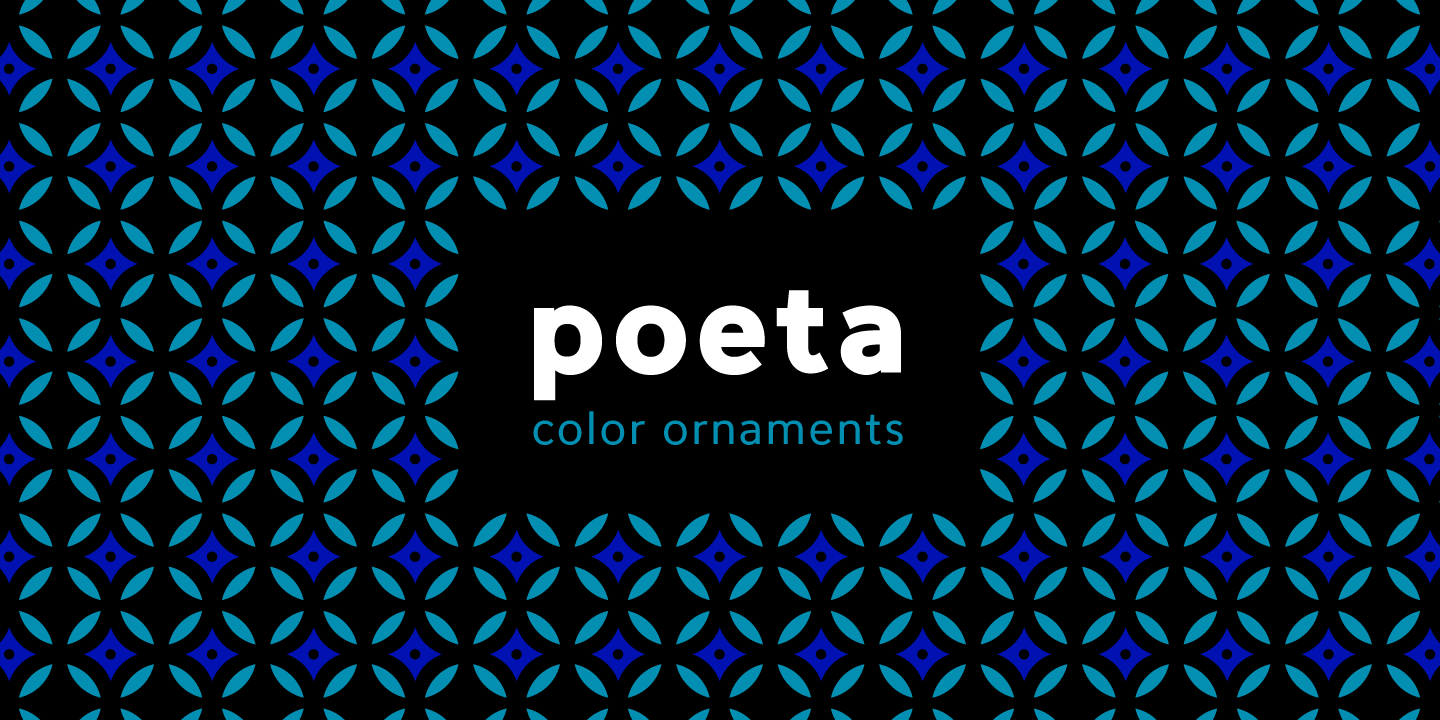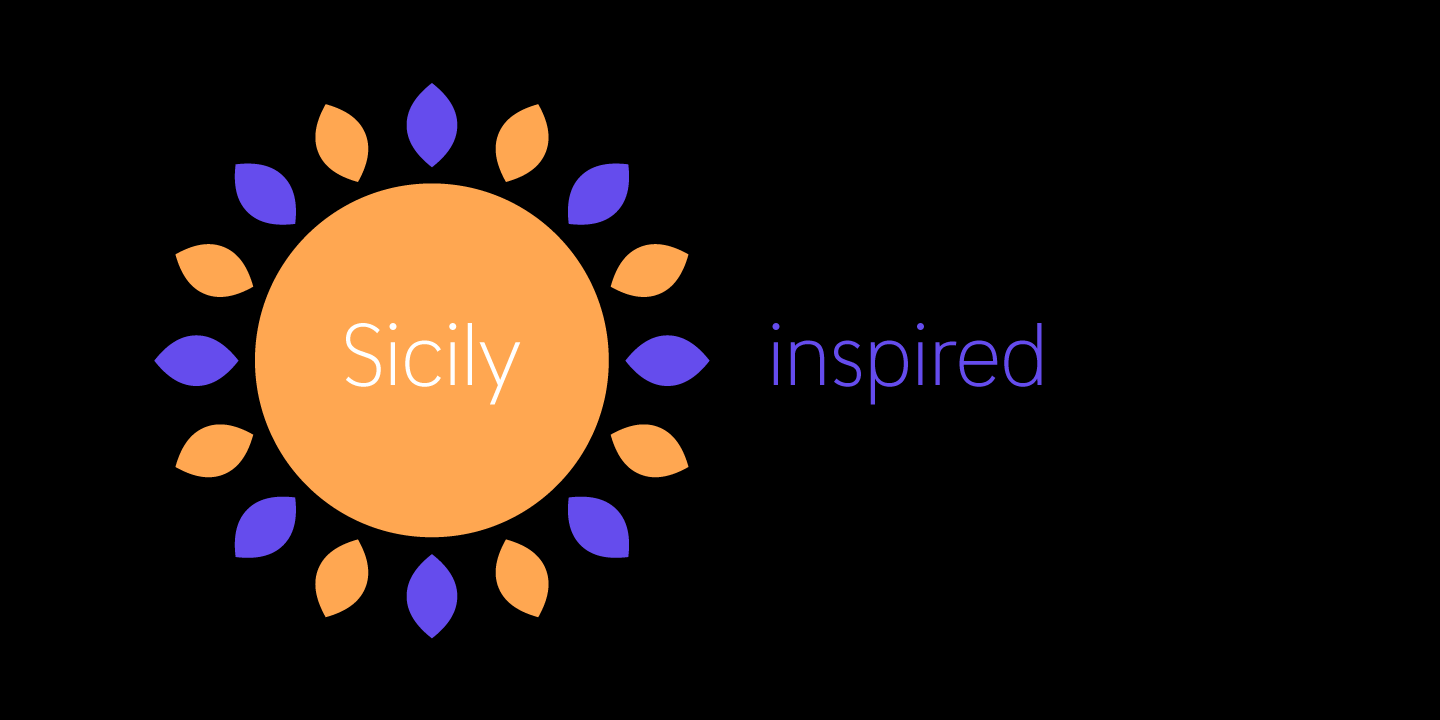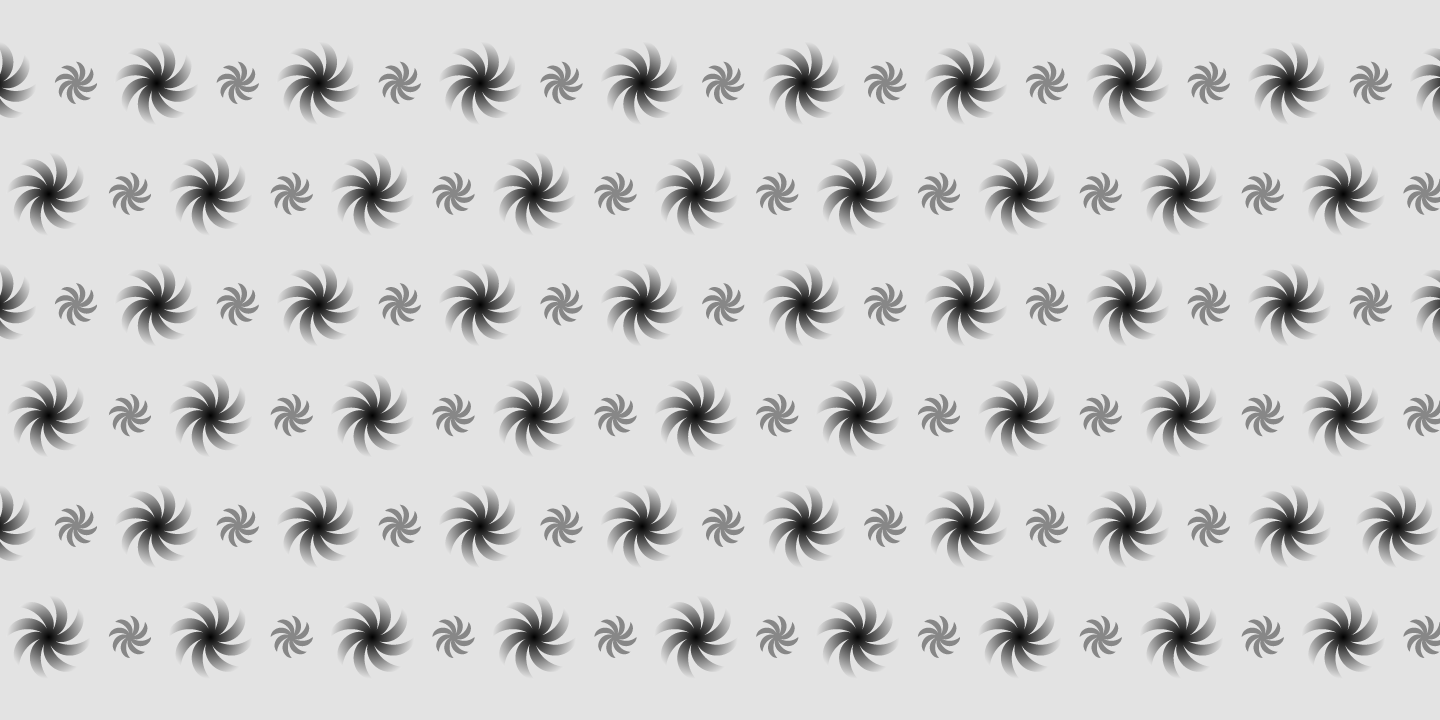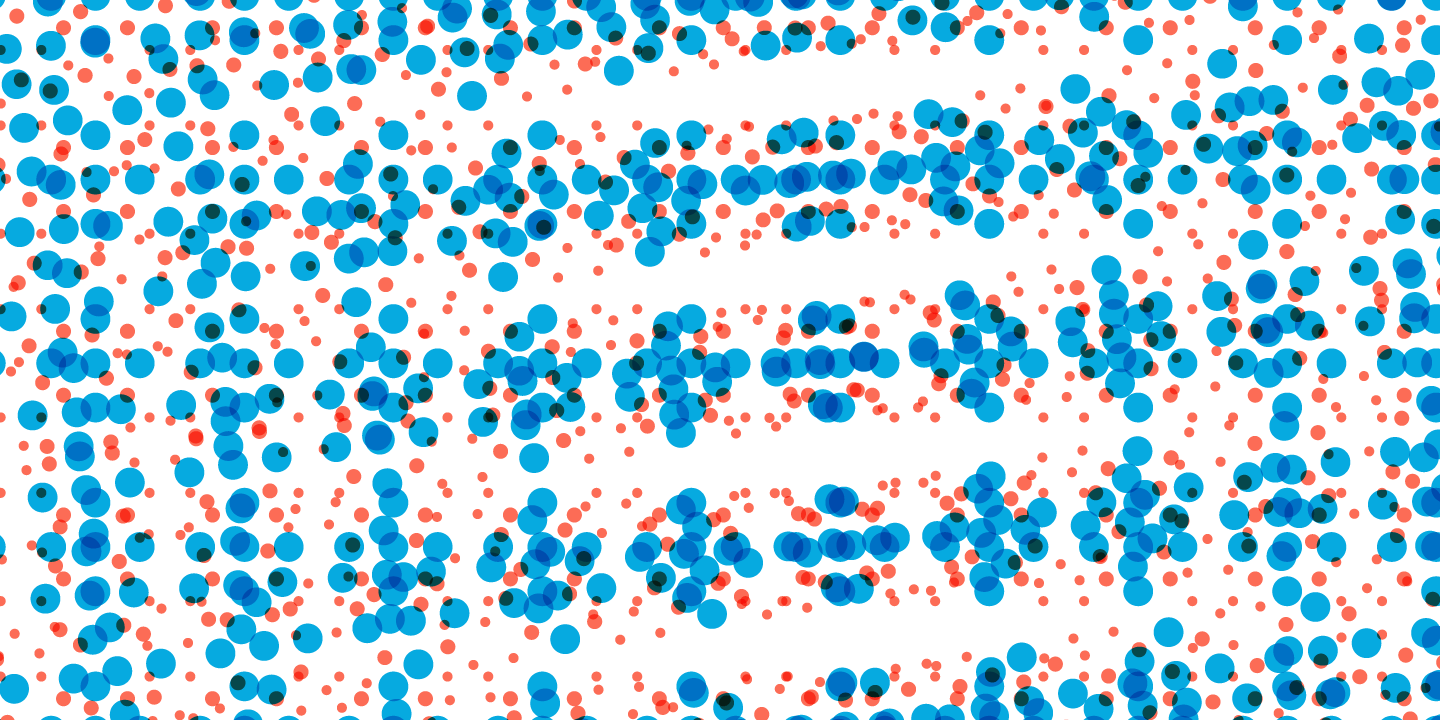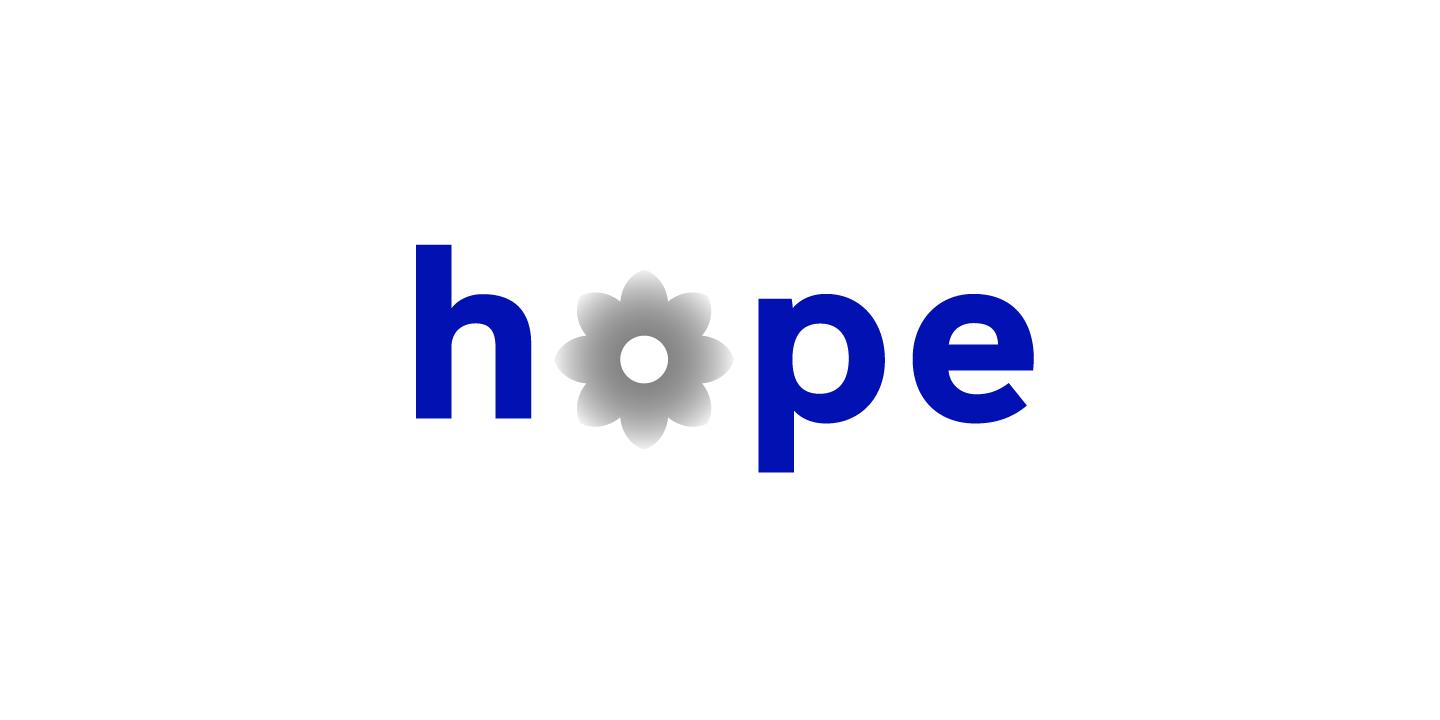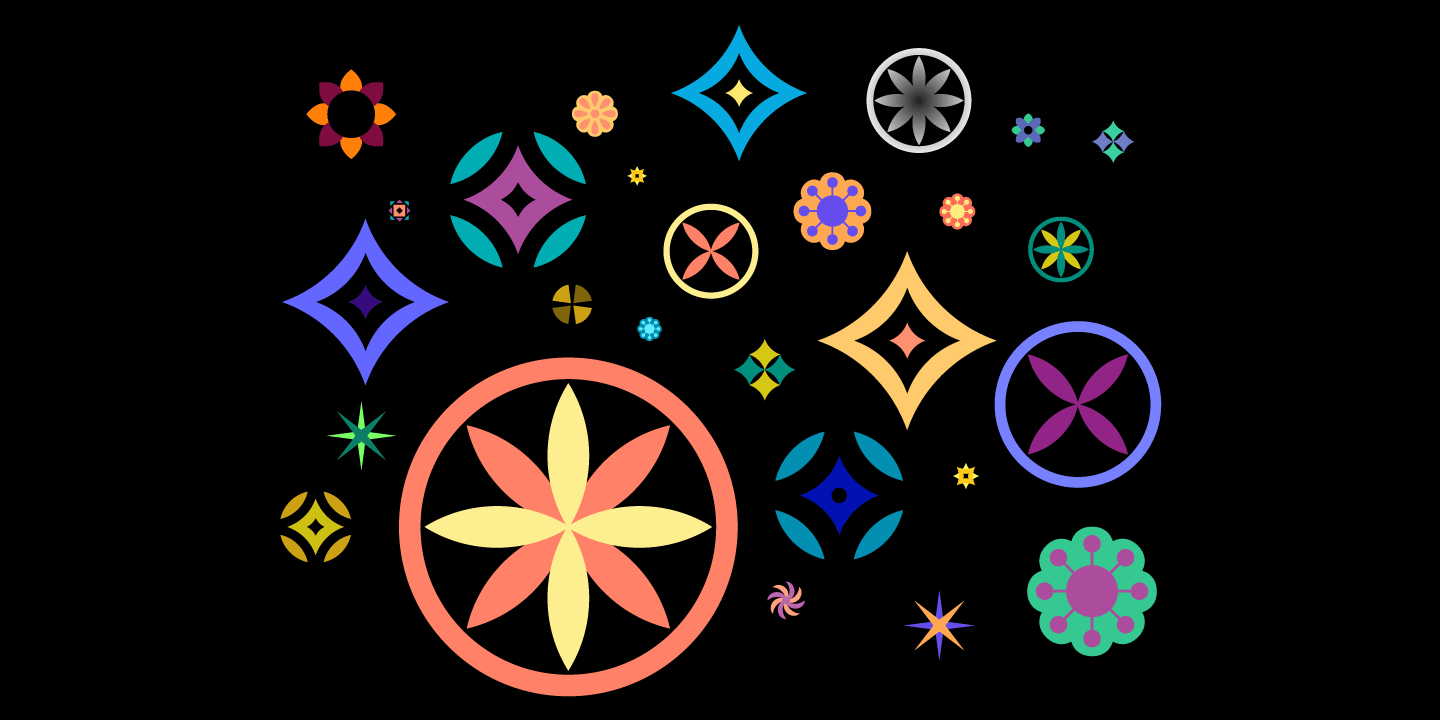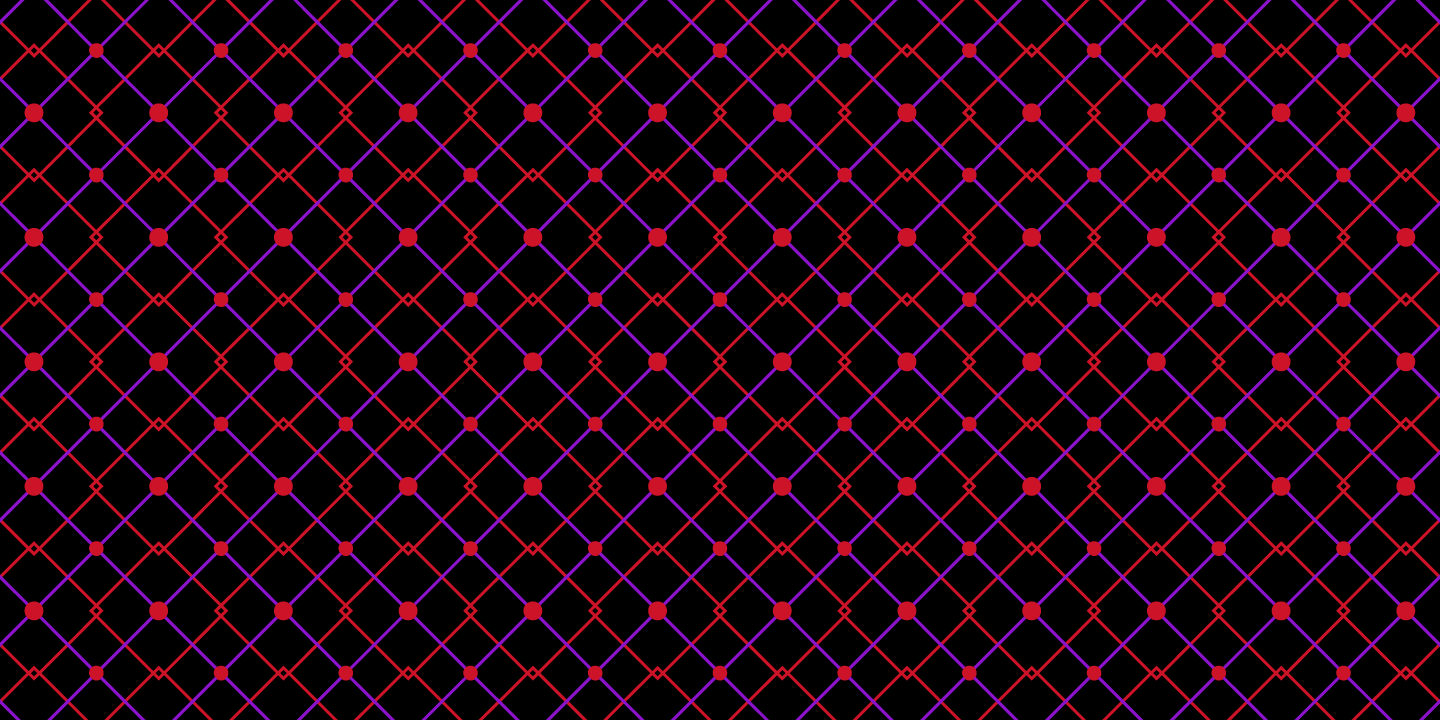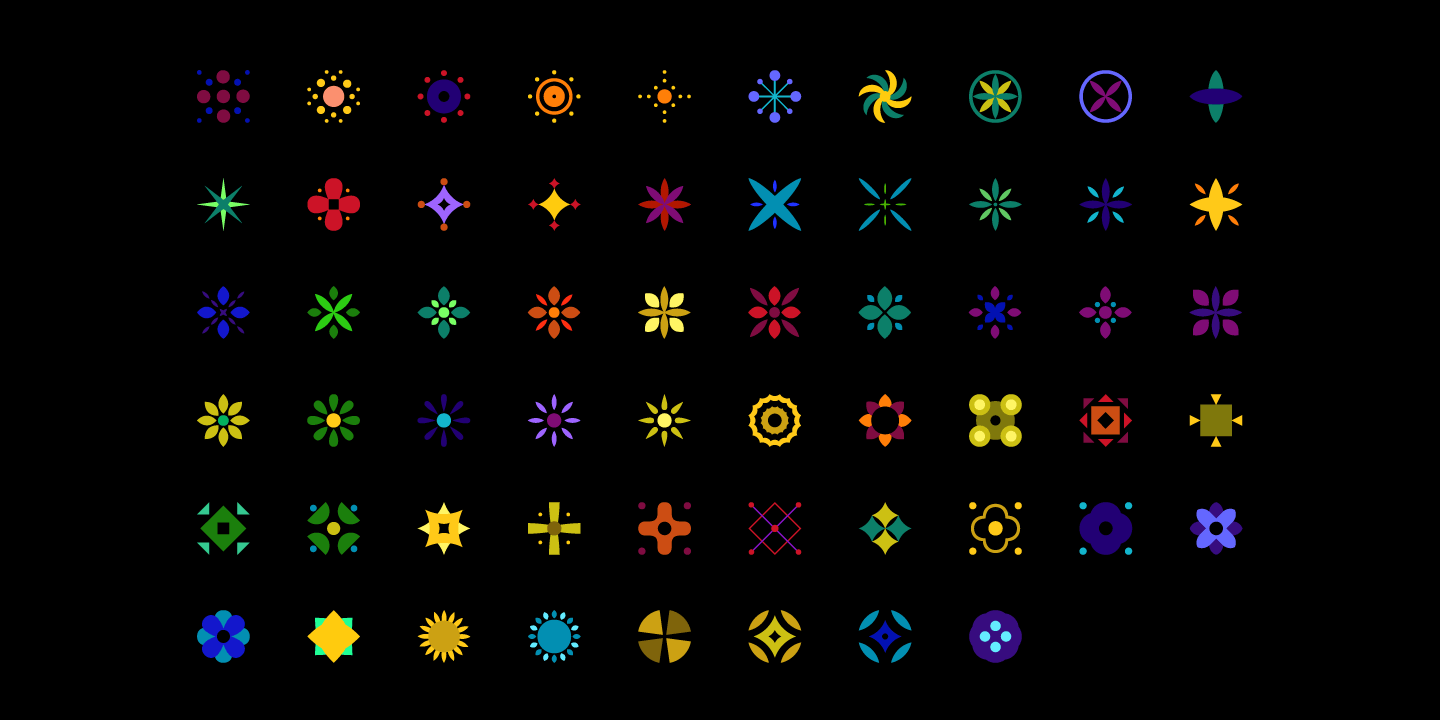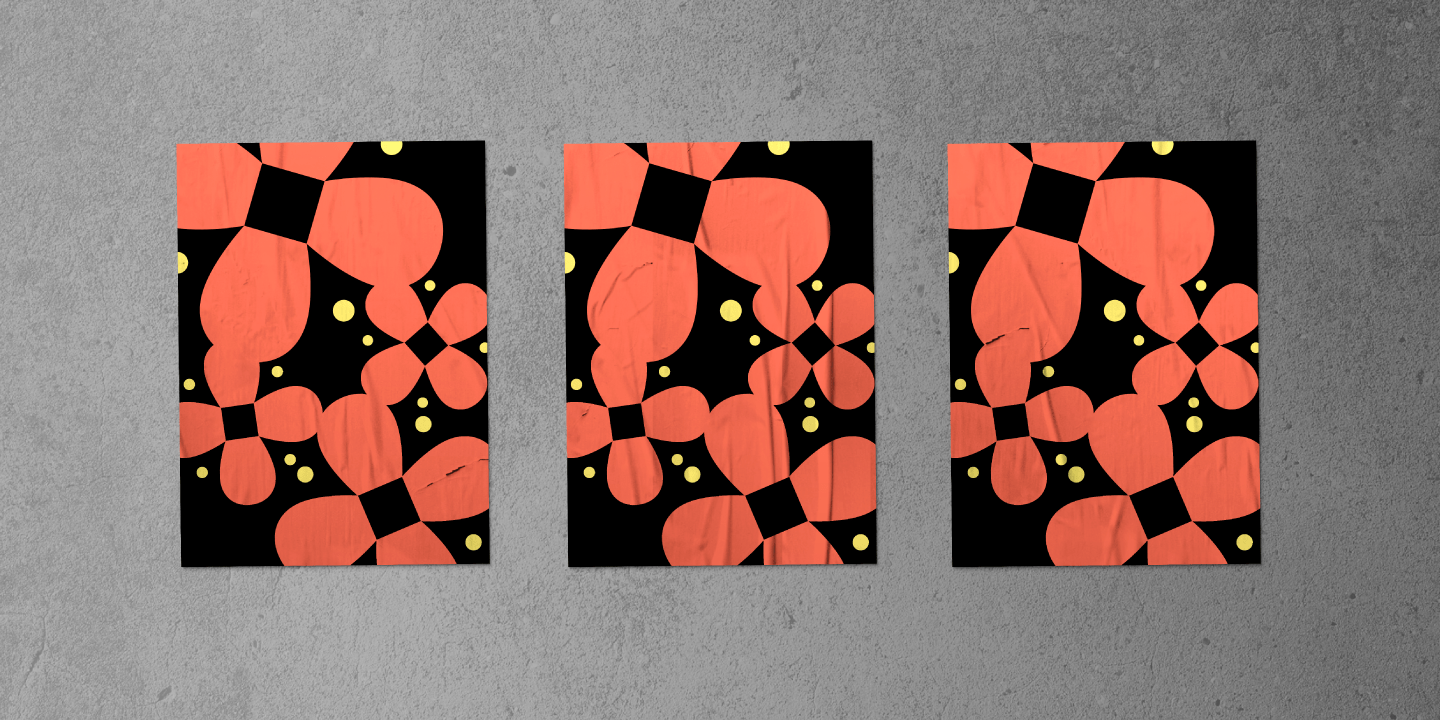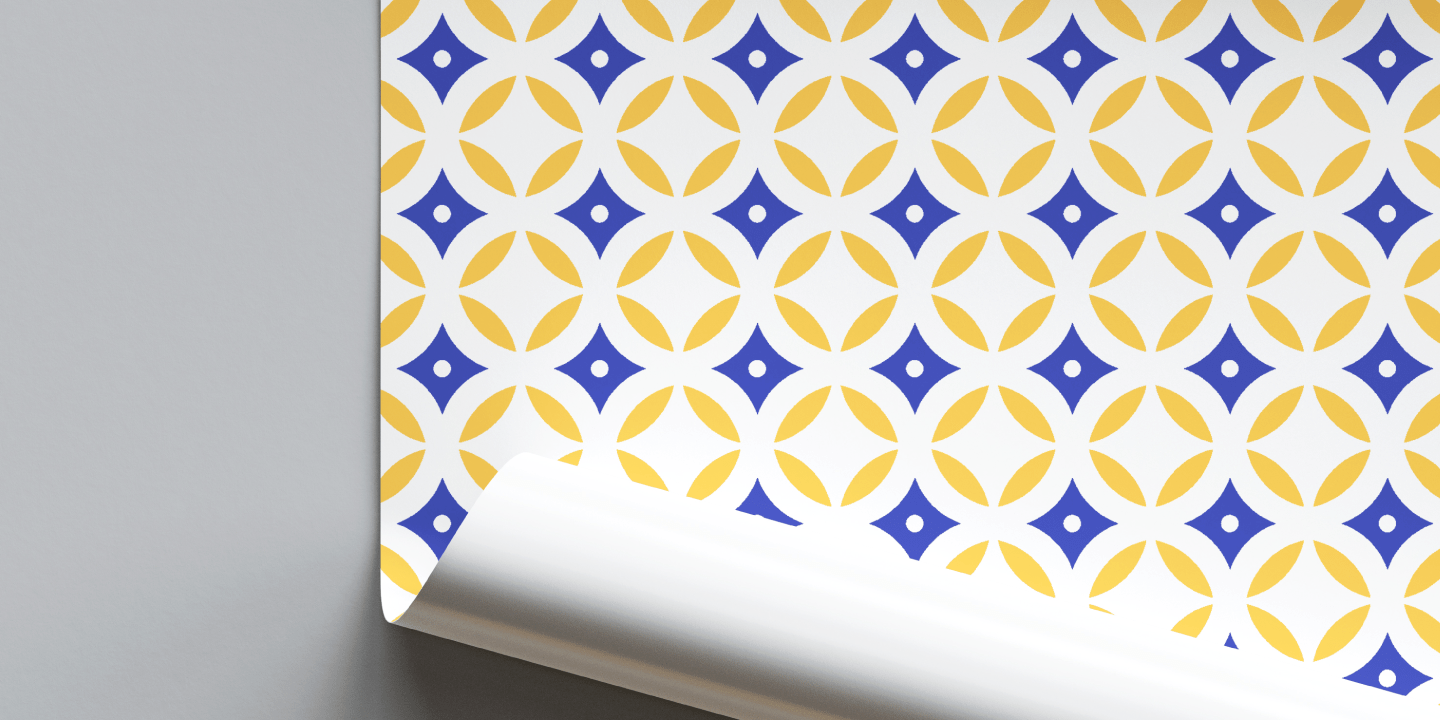
Poeta Color
Poeta is an ornamental font for making patterns and text decoration. It contains floral and nature motifs.
The symbols are versatile enough for simple decoration or festive holiday moods. Designers can use Poeta to make unique lines, borders, backgrounds, or ornamentation within or around text. Try replacing a simple straight line with repeated symbols. Cover an area in a pattern to add visual interest to a design. Use the forms to decorate a chapter title or to mark the end of a magazine article. Replace a letter with a symbol to create a memorable word. Poeta will add visual poetry to any design project.
This font began with sketches of patterns seen in ceramic tiles around Sicily. It is named Poeta because Sicily is an island rich in poetry traditions.